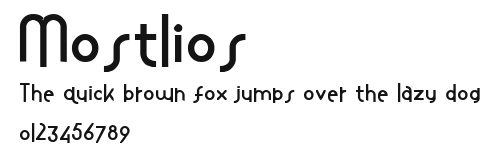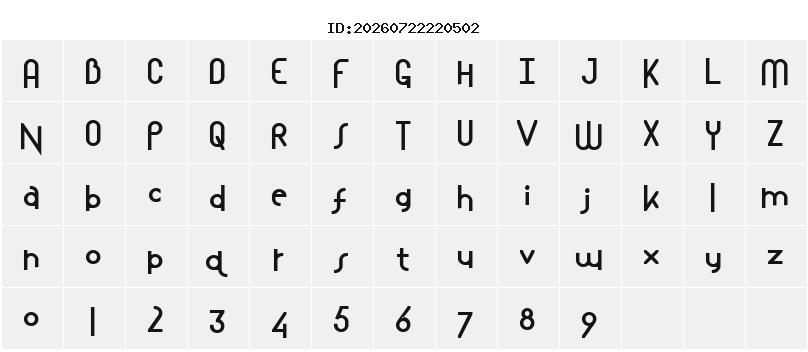
Mostlios Preview
• Font Name: Mostlios
About Mostlios.ttf
Mostlios.ttf is a modern, elegant sans-serif font designed for ultimate readability and visual harmony. Perfect for branding, headlines, web design, and print materials.